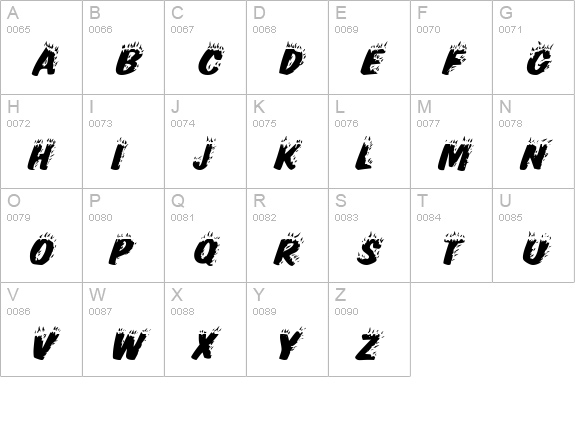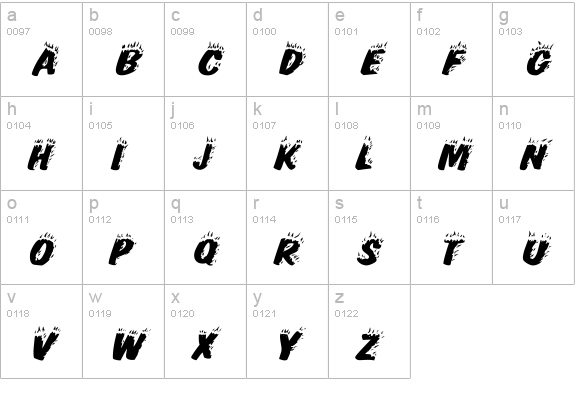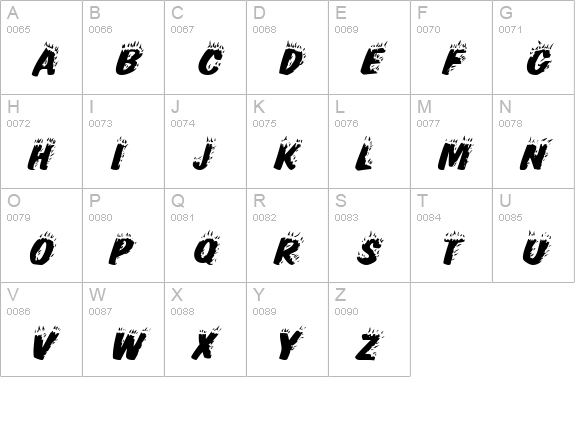
FlamingDisplayCapsHvy Italic Font Details
FlamingDisplayCapsHvy Italic is a distinctive, italic variant in the FlamingDisplayCapsHvy typeface family \xE2\x80\x94 well suited to design and typography projects.
Introducing FlamingDisplayCapsHvy Italic font, a bold and fiery typeface that commands attention and exudes confidence. With its heavy weight and slanted italic style, this font is perfect for making a statement in headlines, logos, and other display purposes. The sharp edges and dynamic flourishes of FlamingDisplayCapsHvy Italic add a touch of drama and sophistication to any design. And the best part? FlamingDisplayCapsHvy Italic font is completely free to download at FontsMarket.com. So go ahead and grab this eye-catching typeface to elevate your projects and stand out from the crowd. Let FlamingDisplayCapsHvy Italic bring a touch of sizzle and flair to your designs today!